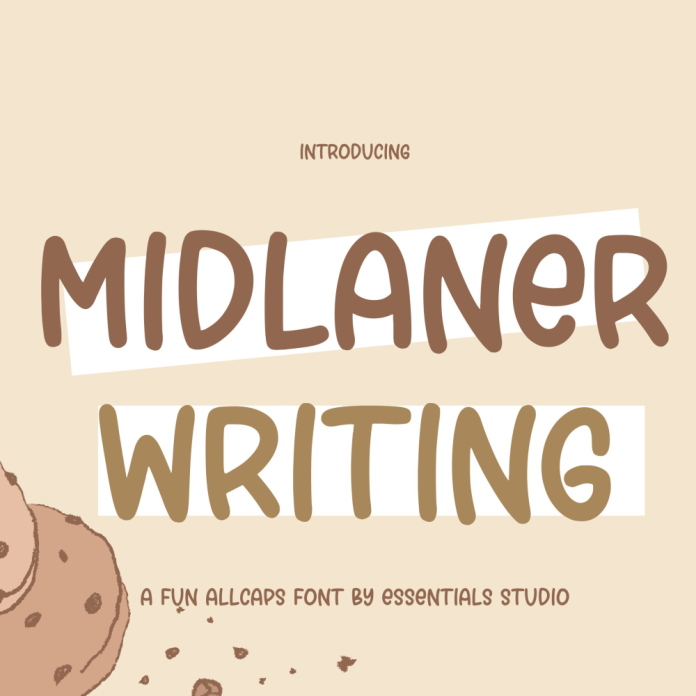
Midlaner is an All-Caps monoline handwritten font. Add it confidently to your projects, and you will love the results. best for feminine crafty projects or SVG design businesses, Wedding Craft, Farmhouse decor and Crafts, logos, Branding, Marketing Materials, Social media graphics, or shirt design. This font come with heart connect and swash includes - upper + lowercase characters A-Z and a-z - numbers 0-9 - punctuation - Western European Language Support